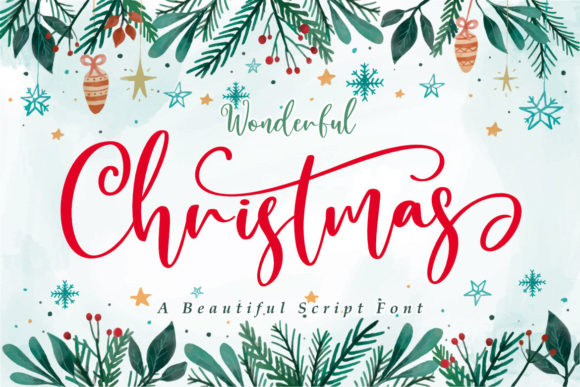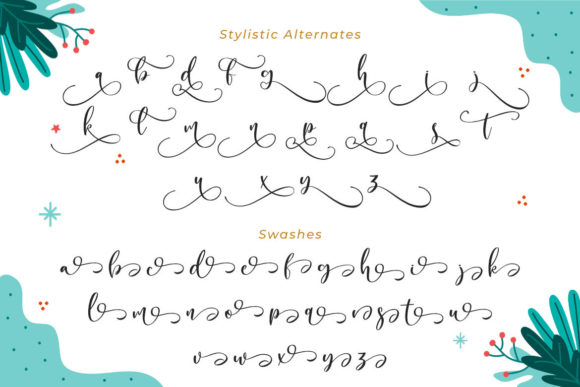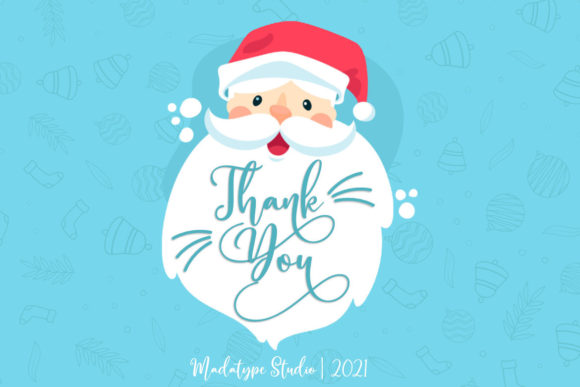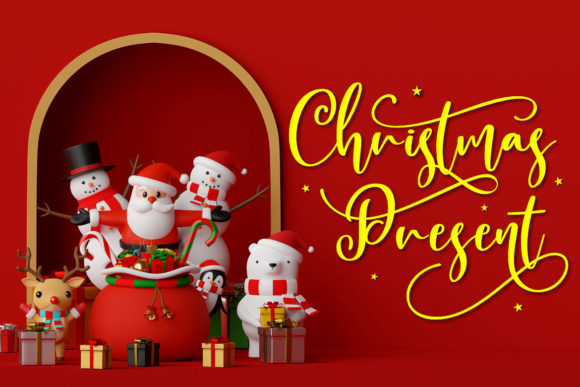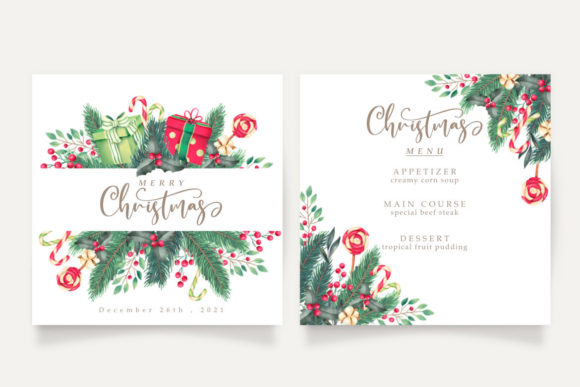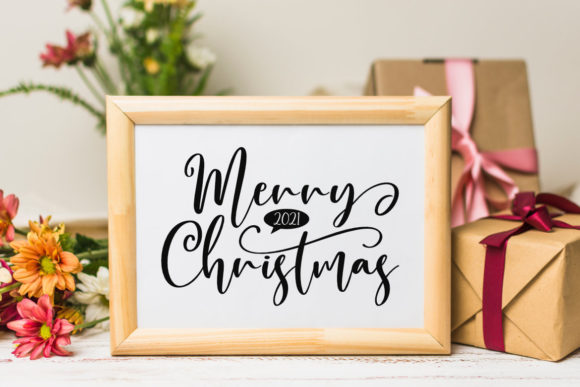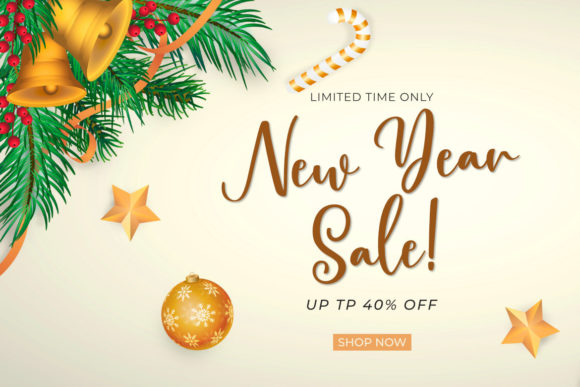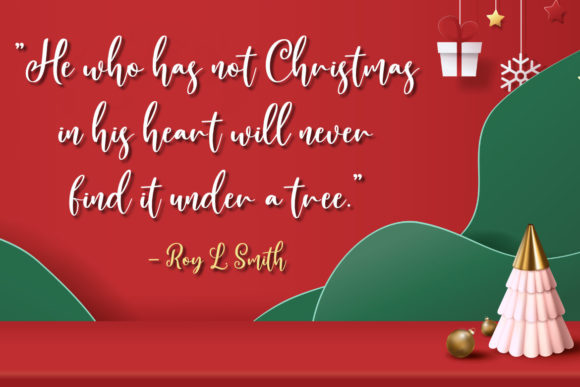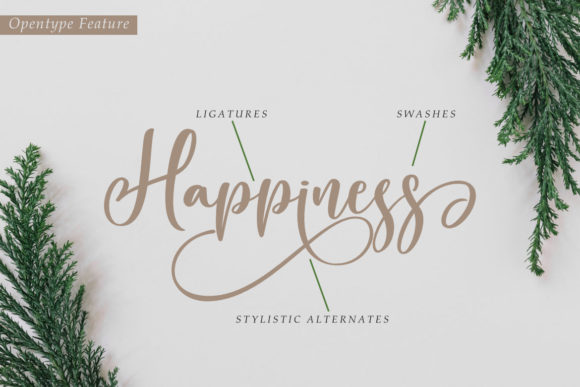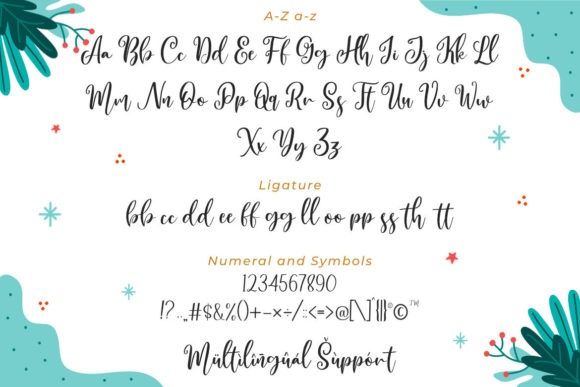
Wonderful Christmas Font
About Wonderful Christmas Font
Wonderful Christmas is an elegant script font with a contemporary atmosphere and impeccable form, inspired by timeless classic calligraphy. This font is PUA encoded which means you can access all glyphs and swashes with ease!